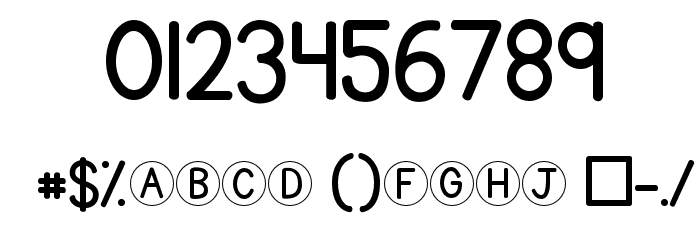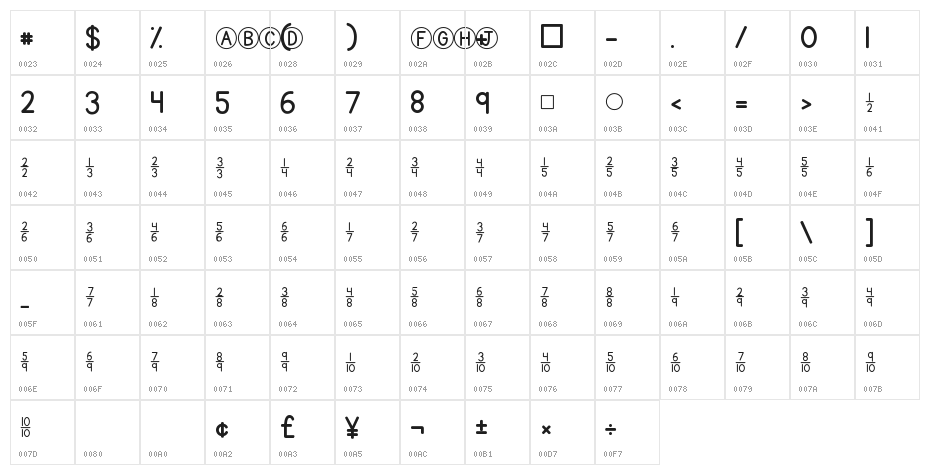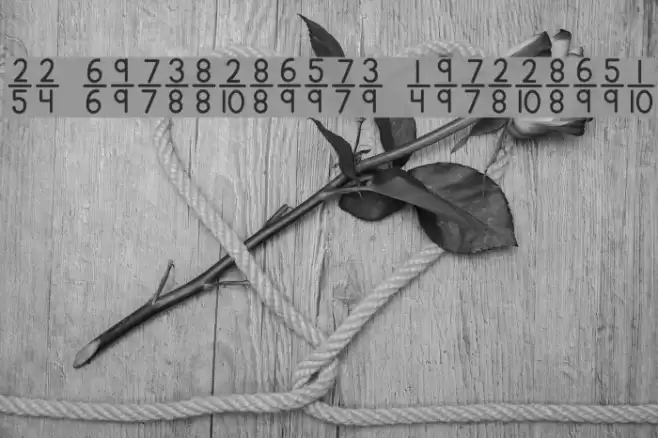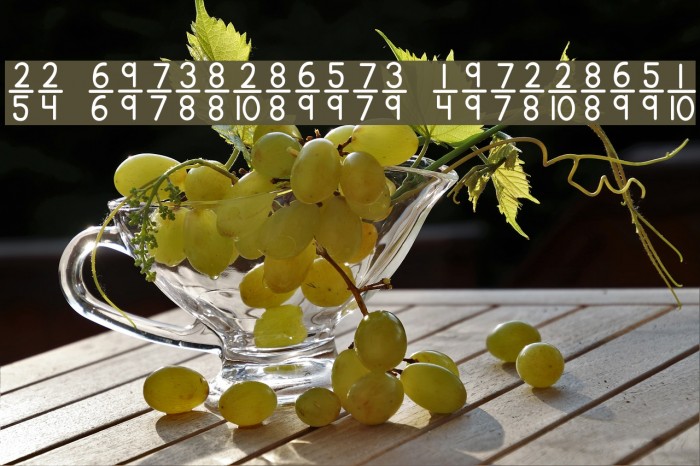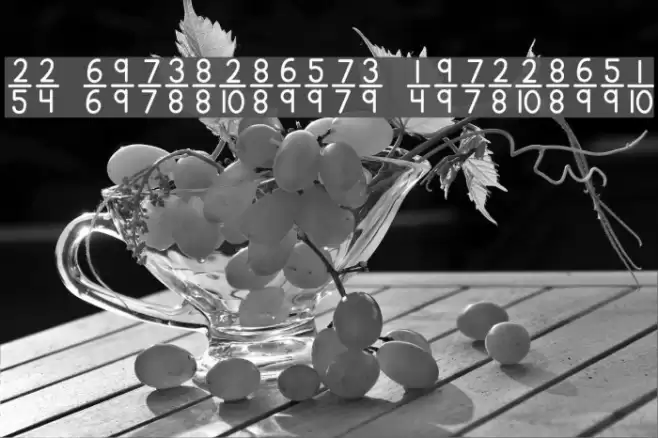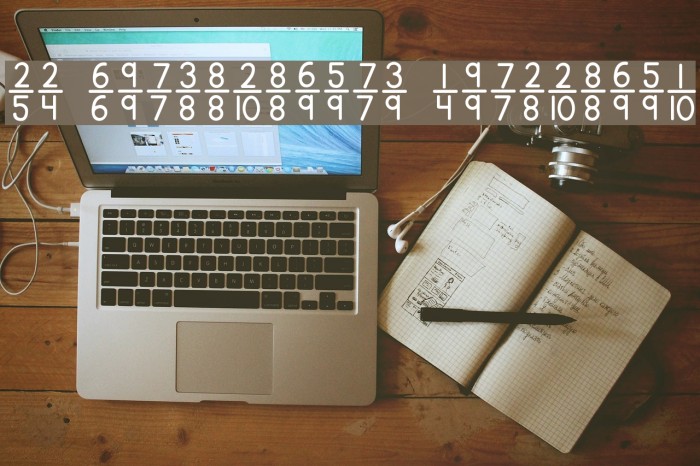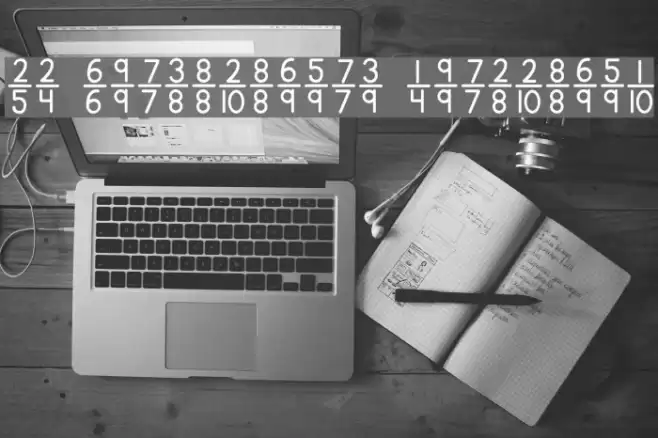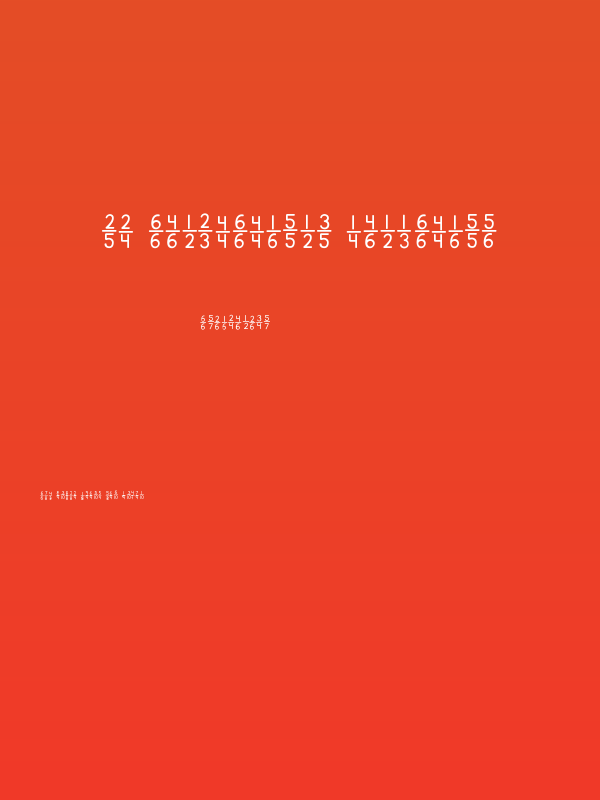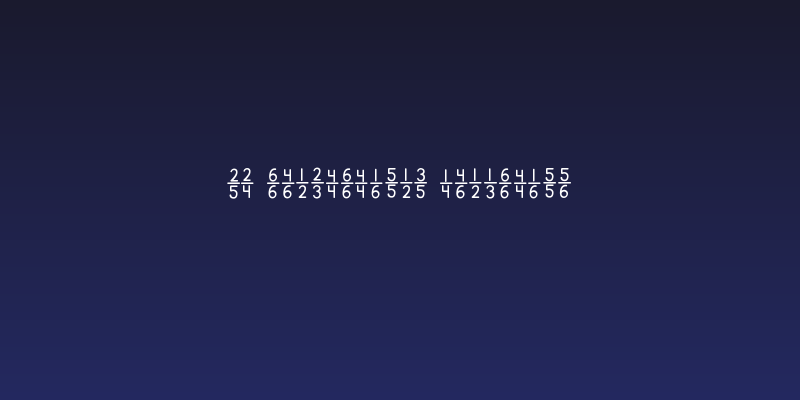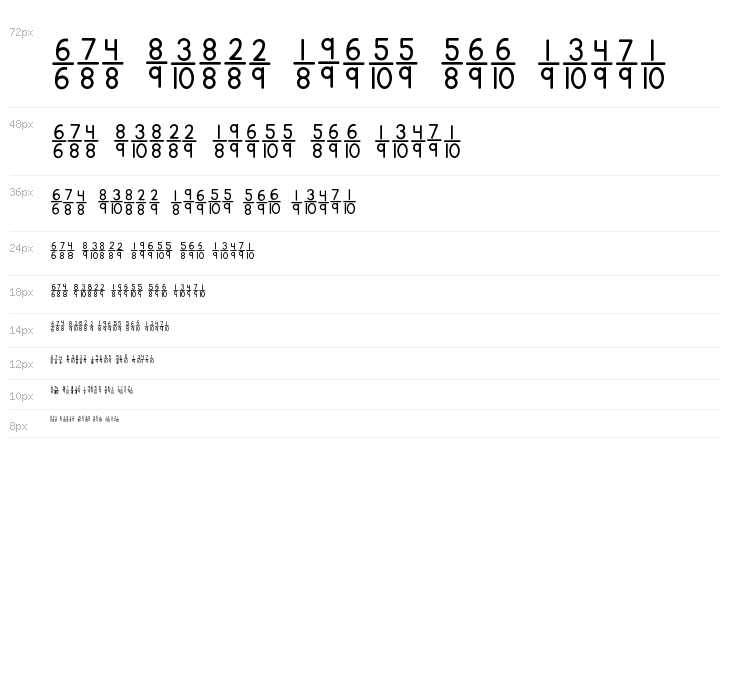
KG Traditional Fractions Font
KG Traditional Fractions Description
This font features a clean and modern design with a focus on numerical fractions. The characters are rounded and smooth, providing a friendly and approachable appearance. The numerals are distinct and easy to read, with a consistent stroke width that enhances legibility. Special characters are included, such as currency symbols and punctuation, which are designed to match the overall style. The font is versatile, suitable for both digital and print media, and can be used effectively in educational materials, technical documents, or any context where clarity in numerical representation is essential.
| Use Case | Technical documents, educational materials, infographics. |
| Proposed Projects | Educational materials, technical documents, infographics, and user interfaces. |